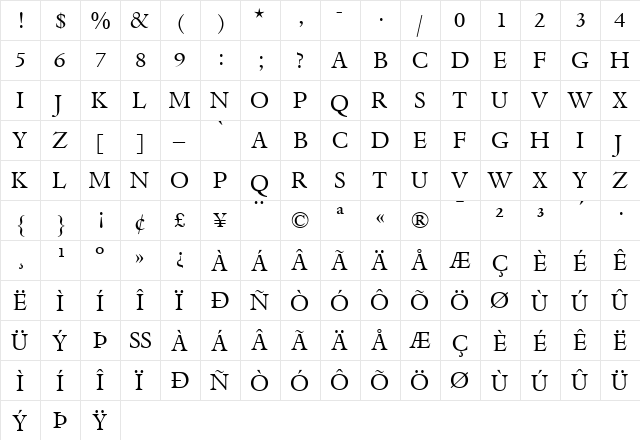
DanteMTTitling Roman
Design Context for DanteMTTitling Typeface
DanteMTTitling offers clean, dependable letterforms without strong stylistic allegiance, making it a practical choice for designers who need flexibility.